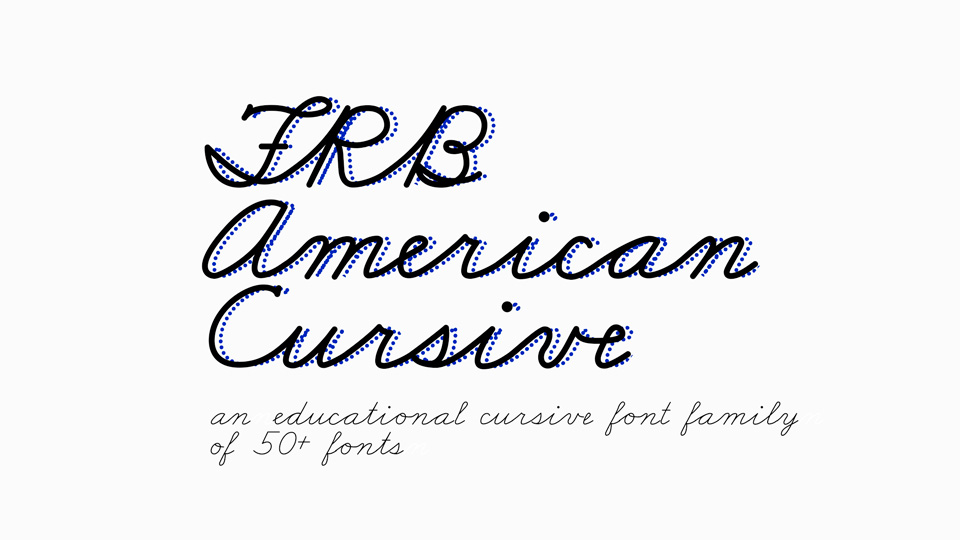
Download FRB American Cursive typeface, an extremely technically complex cursive font family that consists of 50+ fonts. FRB American Cursive is in the style of a “textbook hand”, a font family used primarily for education.
Designer: Fredrick Brennan